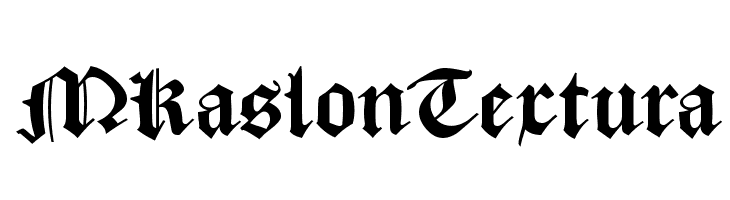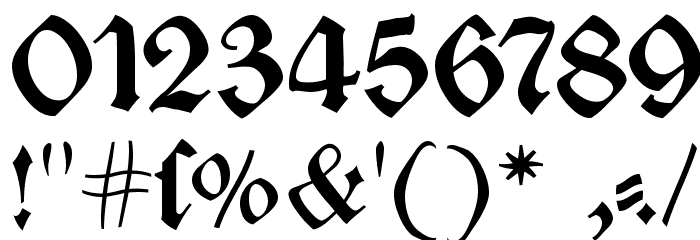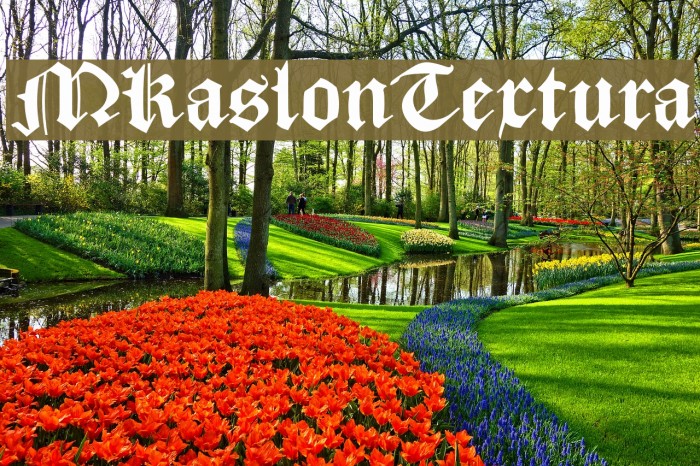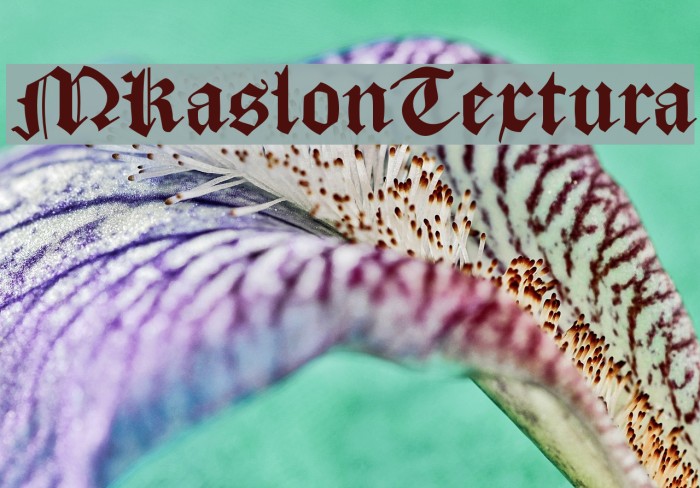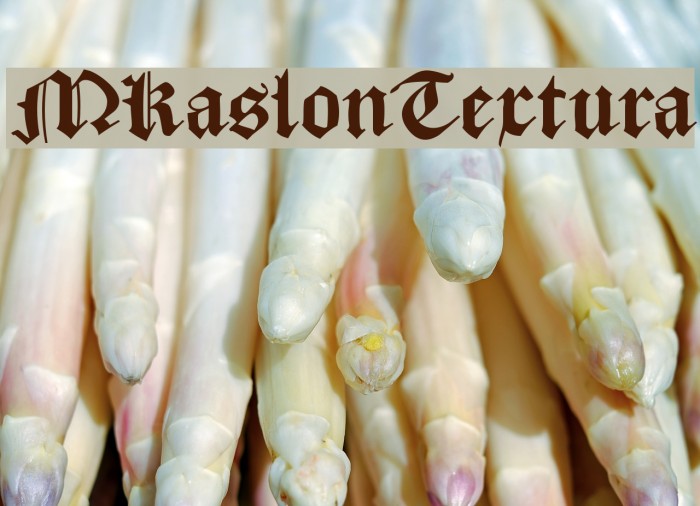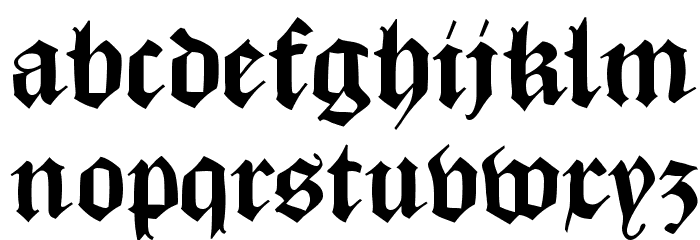
MKaslonTextura Font
MKaslonTextura Description
This font embodies the traditional elegance and intricate detailing of blackletter typography. Each character is crafted with sharp, angular lines and dramatic strokes, reminiscent of medieval manuscripts. The uppercase letters are particularly ornate, featuring elaborate flourishes and a strong vertical emphasis. The lowercase letters maintain the same stylistic elements, ensuring consistency and readability. Numbers and special characters are designed with the same attention to detail, making them suitable for a variety of decorative purposes. The overall aesthetic is both historical and artistic, capturing the essence of a bygone era while remaining versatile for modern applications.
A decorative blackletter font with intricate, angular strokes and medieval flair from Uncategorized fonts.
- Proposed Projects: Ideal for historical documents, wedding invitations, book covers, and branding that requires a classic or gothic touch.
- Overall Style: Vintage
- Use Case: Logos, Headlines, Decorative text